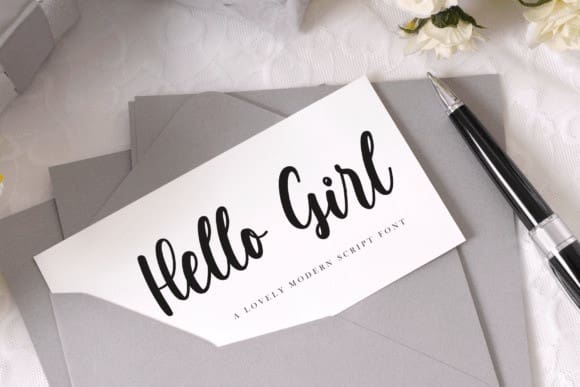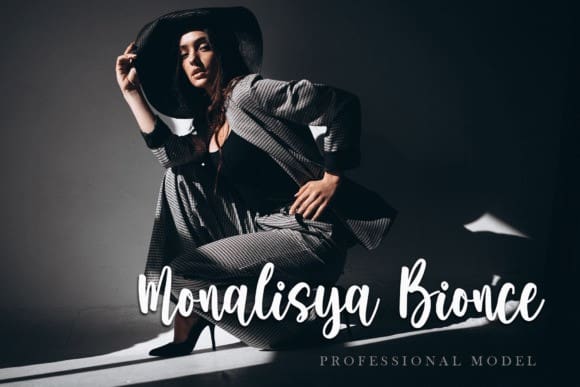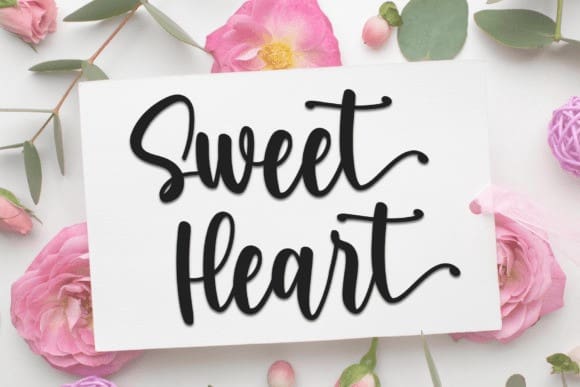
Sweet Heart Font
Sweet Heart Font is a fancy handwritten font. With bold contrast strokes and fun characters, it will enhance your creativity. It is perfect for logo design, social media, movie titles, book titles, and many more. Make stunning work with SweetHeart font!